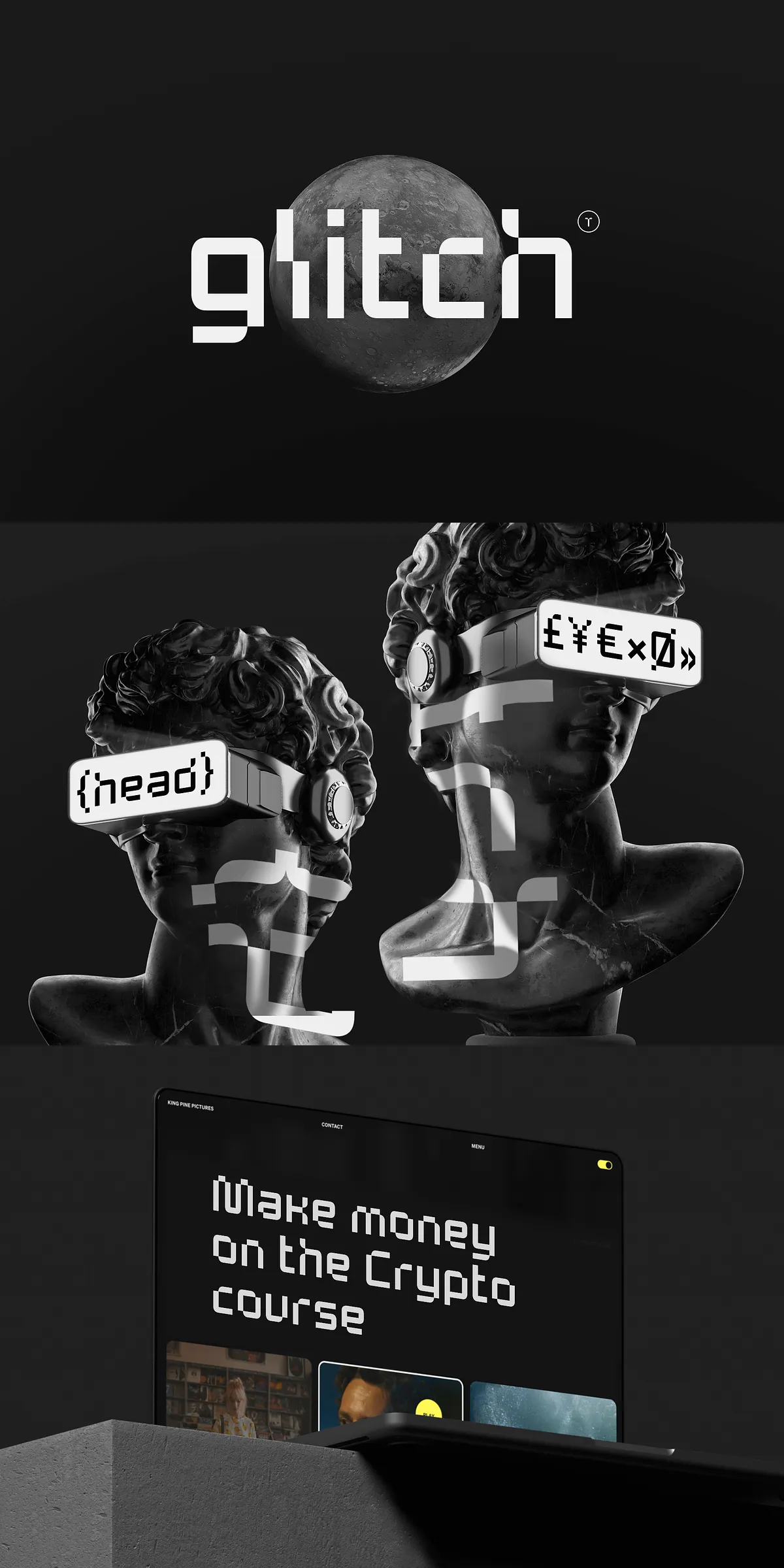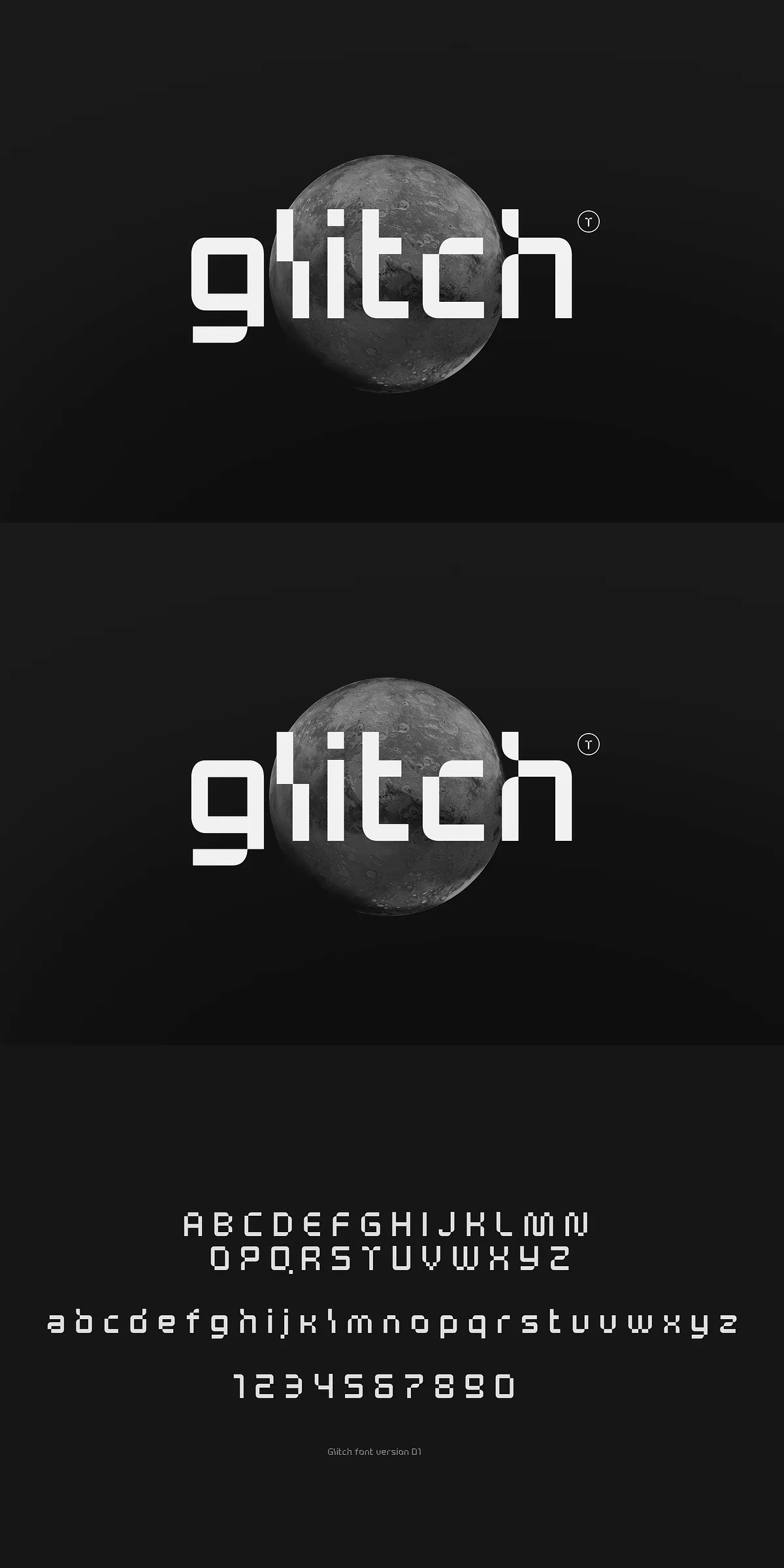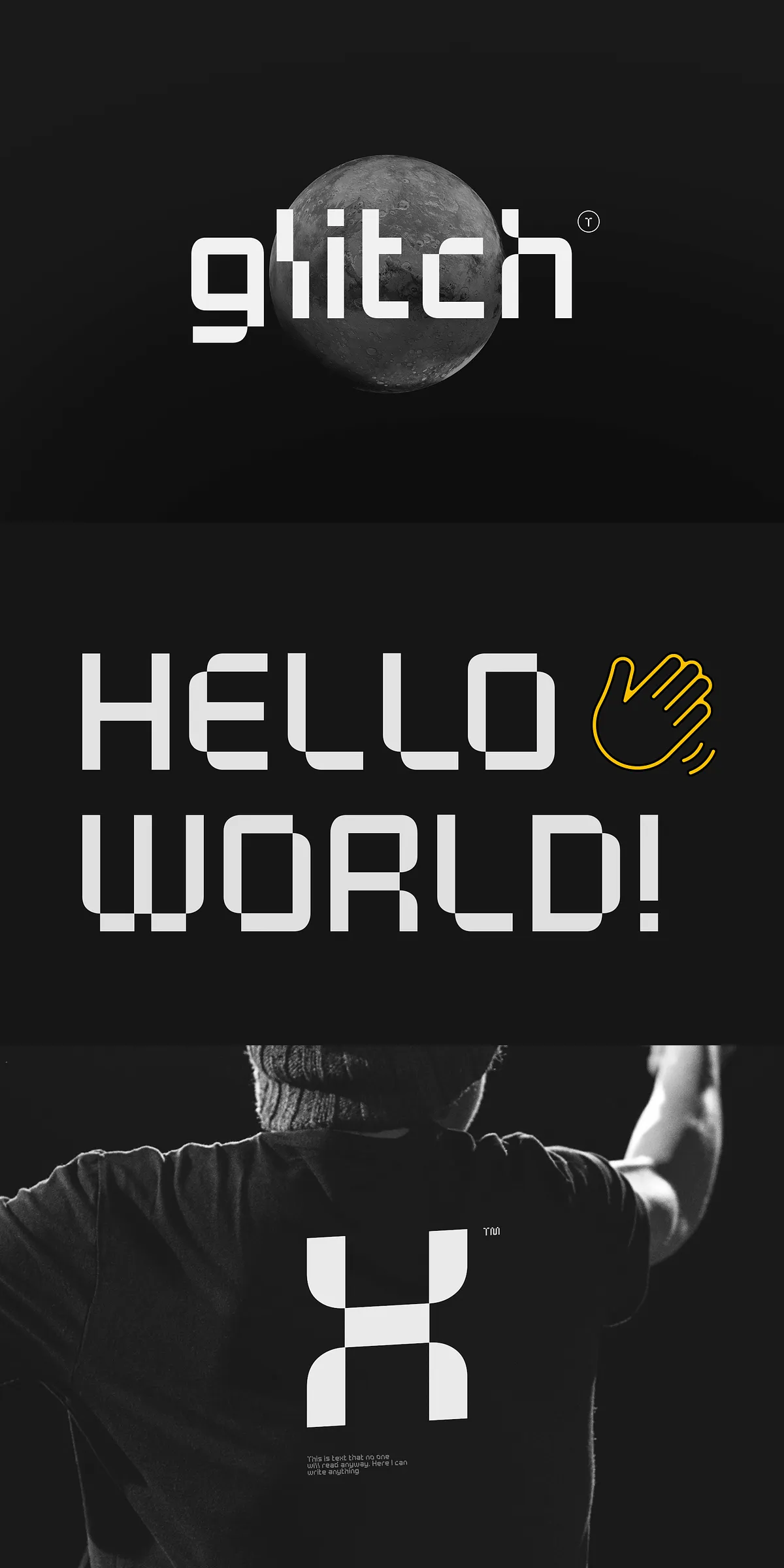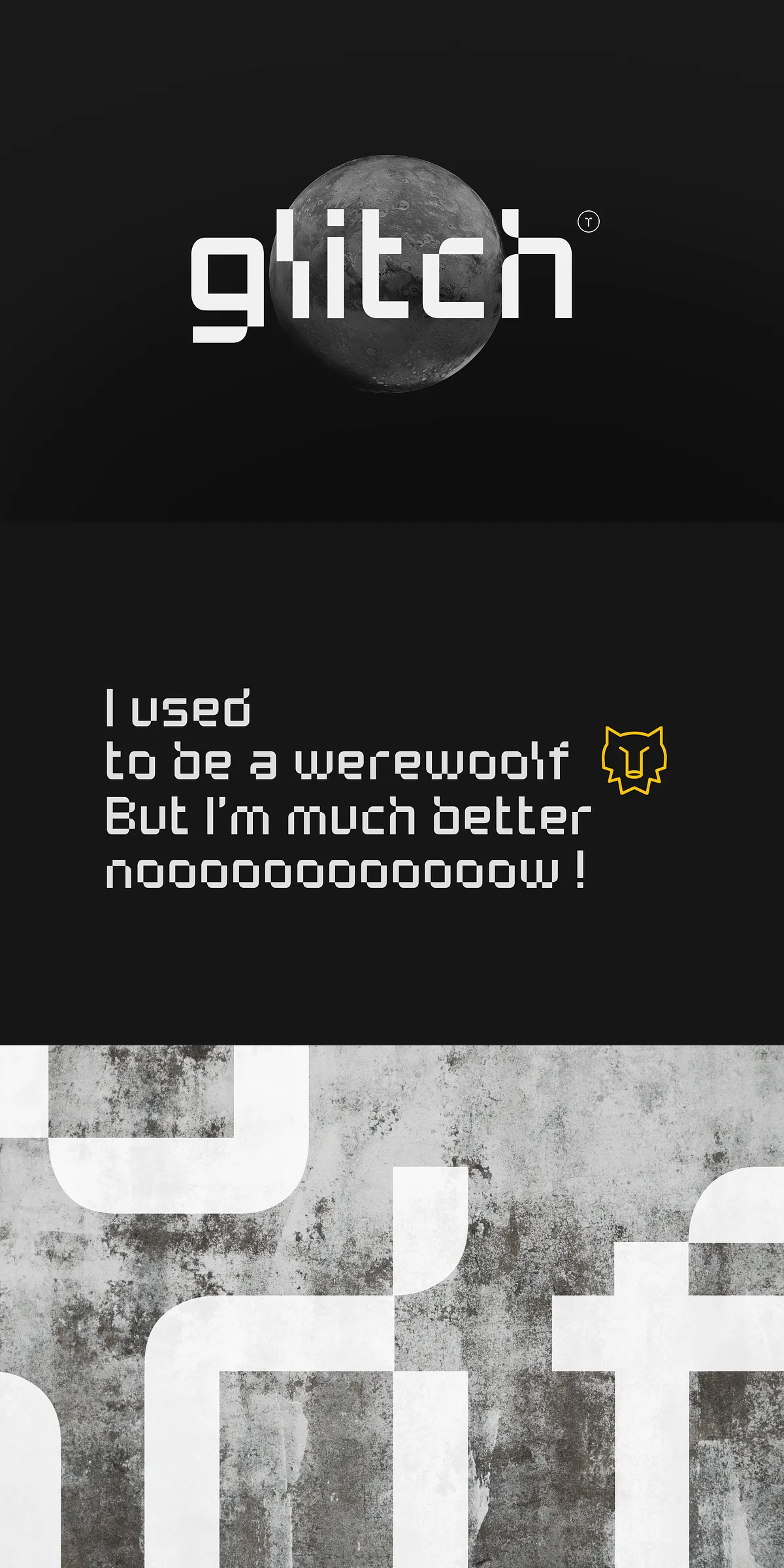
Glitch font – Pixelated Display Sans
Step into the future of digital typography with Glitch — a carefully crafted accentuated modern typeface designed for those who value both technical sharpness and visual elegance. Unlike rough, outdated pixel fonts that sacrifice clarity for retro charm, Glitch offers a refined, intentional aesthetic. Every stroke is balanced, every curve is purposeful, ensuring your message is received with clarity, confidence, and modern sophistication.
Whether you’re building a blockchain brand, launching a game, designing a developer tool, or crafting a high-impact media campaign, Glitch gives your project the digital edge it deserves — without sacrificing elegance.
Where Technology Meets Design: Built for the Digital Age
Glitch isn’t just a font — it’s a statement. It embodies the spirit of digital innovation while maintaining a refined, professional presence. Unlike aggressive or chaotic glitch aesthetics, this typeface uses subtle distortions, intentional spacing, and clean geometry to create a sense of controlled digital disruption — ideal for conveying modernity, intelligence, and forward-thinking design.
Perfectly suited for:
• Crypto & Blockchain Projects – Build trust and credibility with a sleek, tech-forward font that stands out in a crowded market.
• Game Design & Developer UI – Use in menus, character names, HUD elements, and story prompts for a polished, immersive experience.
• Web & App Interfaces – Add a dynamic touch to headings, buttons, and interactive copy without compromising readability.
• Media & Tech Branding – Elevate product names, taglines, and promotional assets with a modern digital signature.
• Print & Packaging – Surprise audiences with a bold, techy font on product labels, posters, and event flyers.
Engineered for Performance Across All Platforms
Glitch delivers top-tier usability across digital and physical mediums. The font family is optimized for high-resolution display, ensuring crisp rendering on retina screens, mobile devices, and print outputs.
Why Glitch? Because Digital Design Deserves More Than the Average Typeface
In a world flooded with generic fonts, Glitch rises above. It’s not just a tool — it’s a design philosophy. It combines the raw energy of digital culture with the discipline of professional typography. It speaks to coders, creatives, developers, and brands that want to stand out — not by shouting, but by being thoughtfully, deliberately different.
You don’t just want a font that looks digital. You want one that feels digital — polished, precise, and alive with intent.